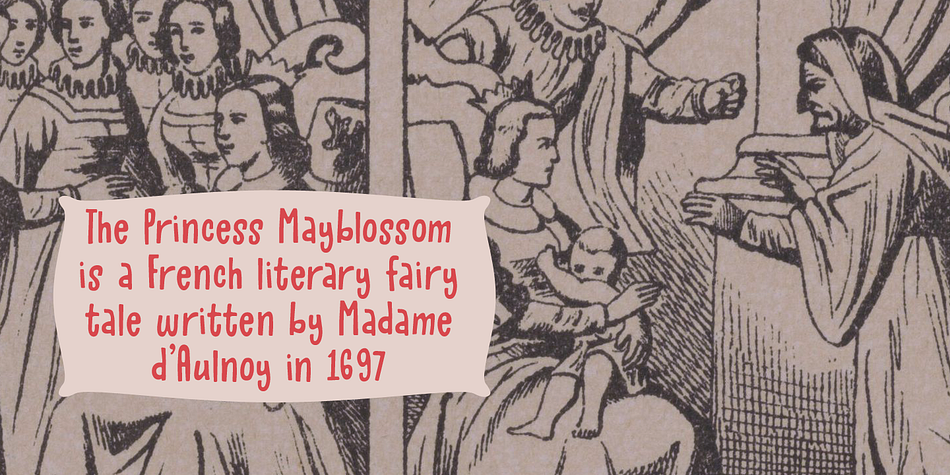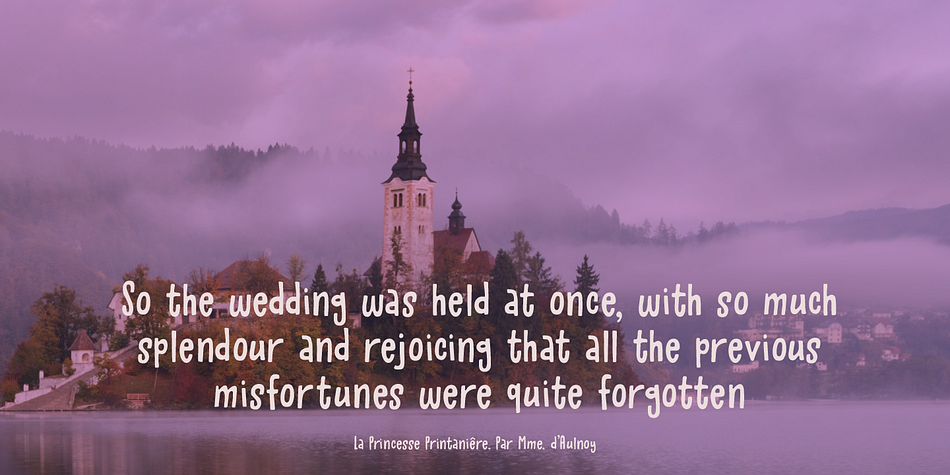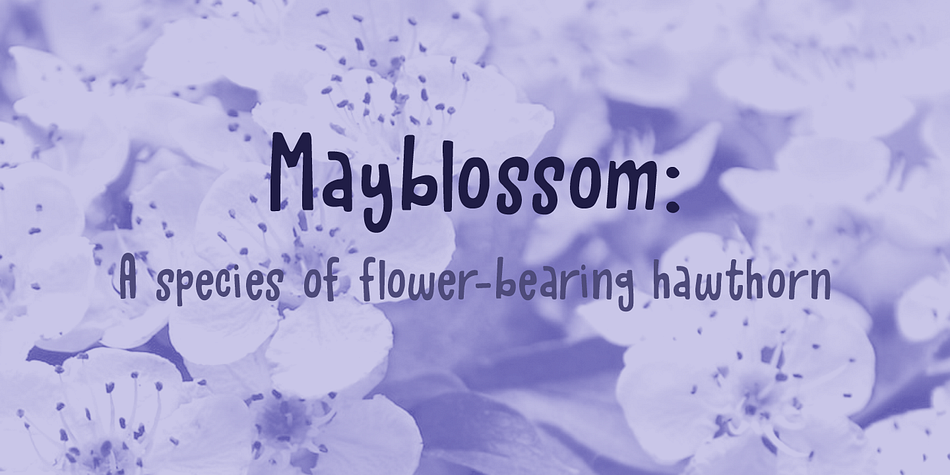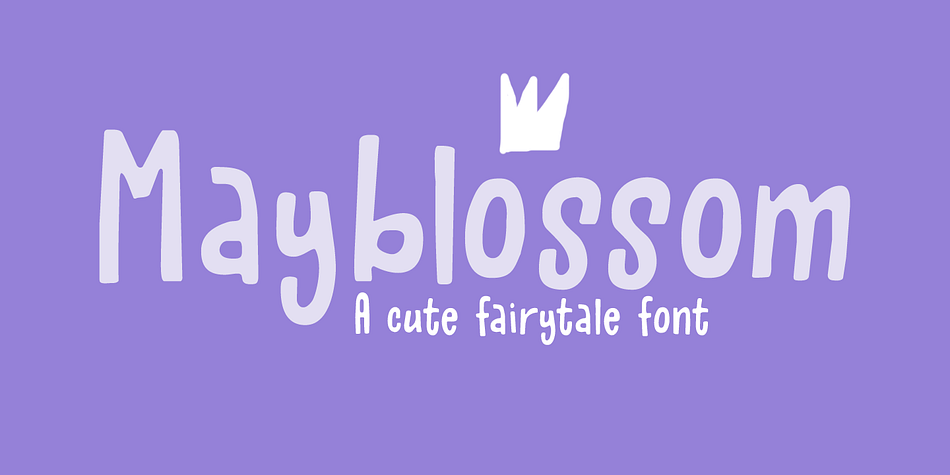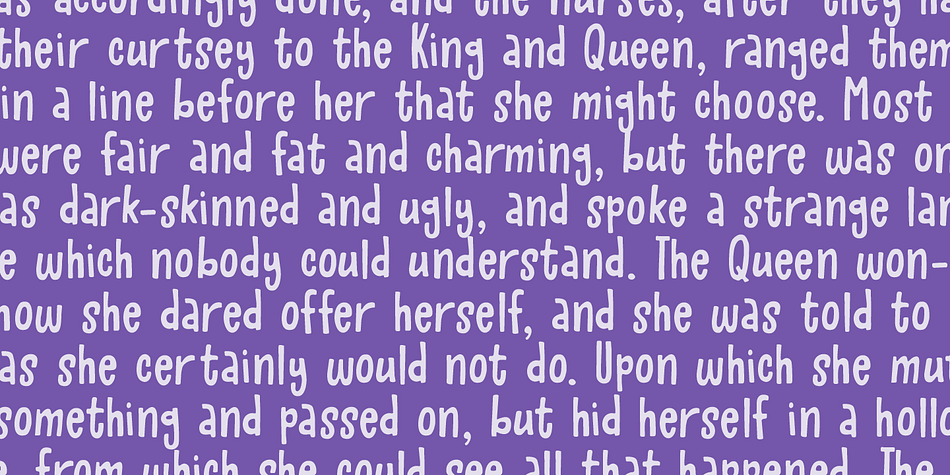
Designed by David Kerkhoff, Mayblossom is a hand display font family. This typeface has two styles and was published by Hanoded.
Mayblossom was named after an old French fairytale (The Princess Mayblossom),which is quite similar to the tale of Sleeping Beauty.
Mayblossom font is a fairytale font. It was made with a magic wand (with a Unicorn hair core) onto centuries old parchment. The font was then blessed by 12 lovely fairies. Of course, I had the evil thirteenth one kidnapped before she could cast her spell.
In other words, if your work requires a certain lightness, a pinch of fairy dust and a sprinkling of magic, then Mayblossom is your best pick.